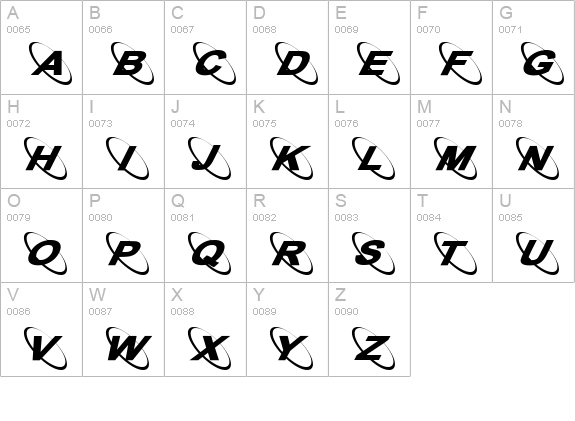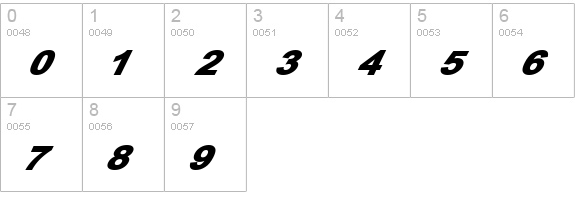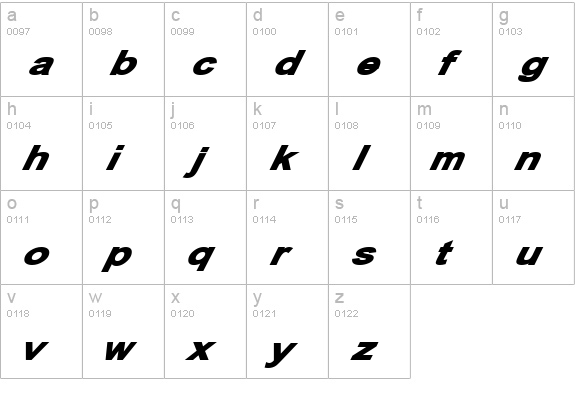
13_Misa Font Details
The 13_Misa font is a beautifully crafted typeface that exudes elegance and sophistication. Its sleek lines and modern design make it perfect for a wide range of projects, from branding to editorial design. This versatile font is sure to make a statement and elevate any design it is used in. Best of all, the 13_Misa font is completely free to download at FontsMarket.com. This means you can add this stunning font to your collection without breaking the bank. Don't miss out on the opportunity to enhance your designs with this stylish and eye-catching typeface. Download the 13_Misa font today and take your projects to the next level.